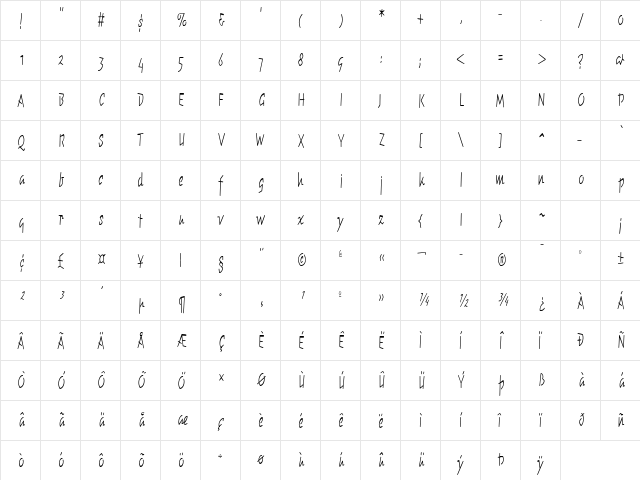
ChunkyMonkeyCondensed Plain
Design Context for ChunkyMonkeyCondensed Typeface
ChunkyMonkeyCondensed is a composed and adaptable typeface that performs quietly and consistently across a wide range of design contexts. The condensed width makes it efficient for tight spaces without sacrificing legibility.